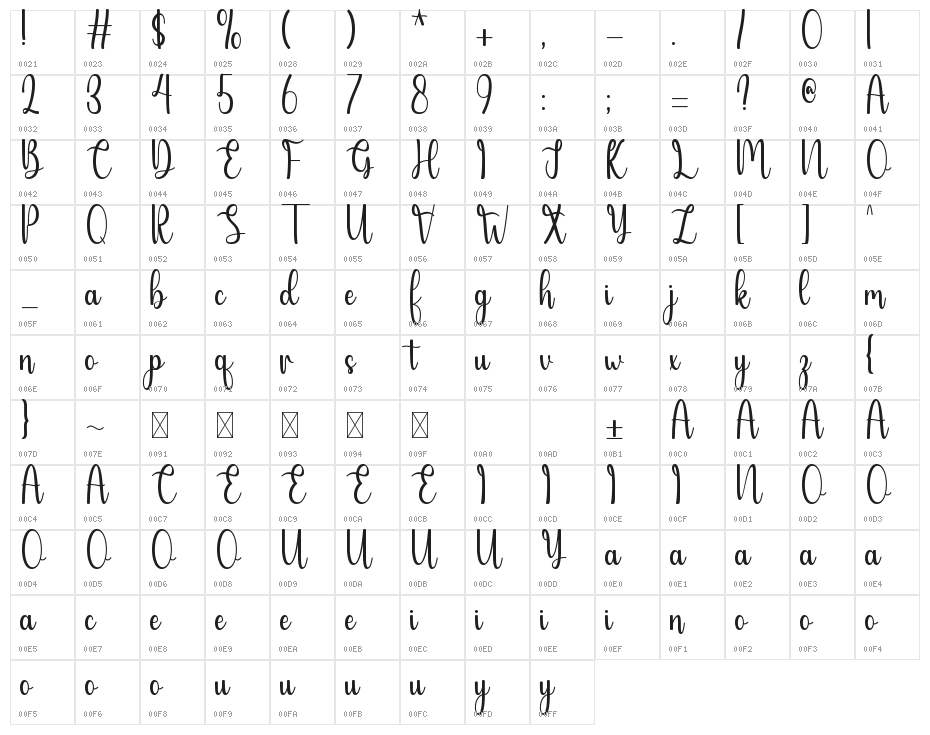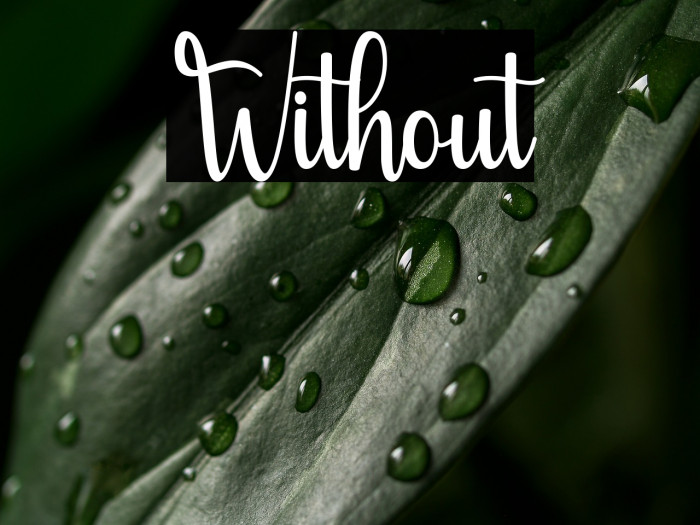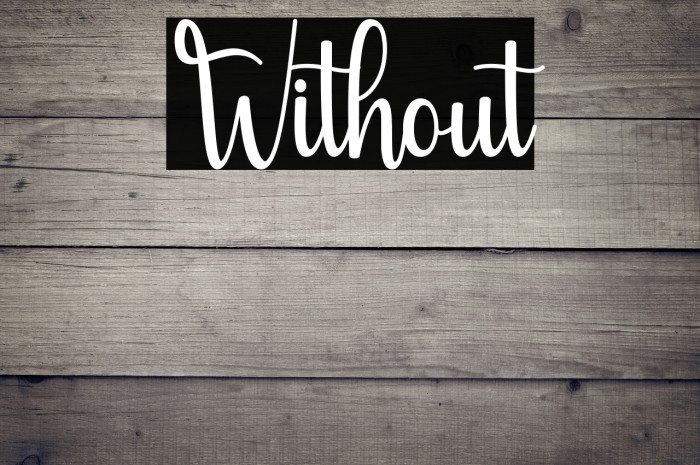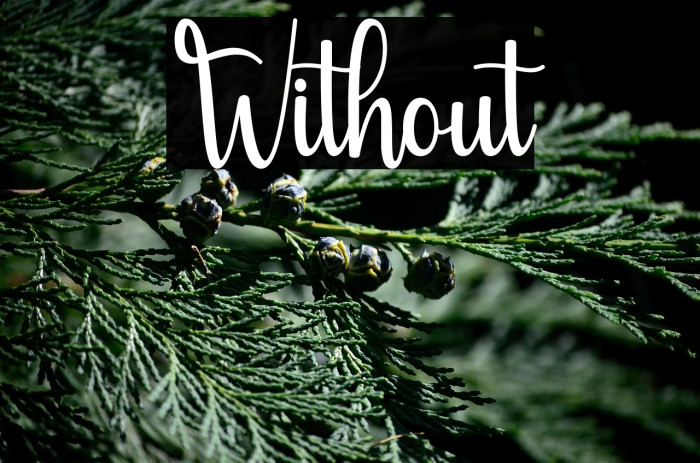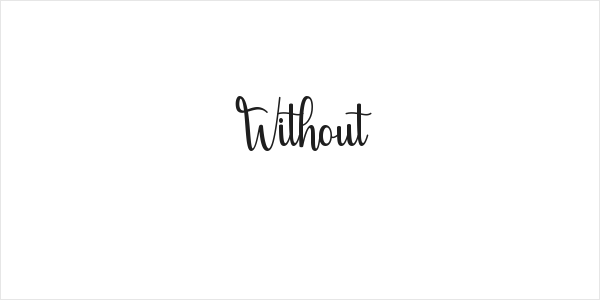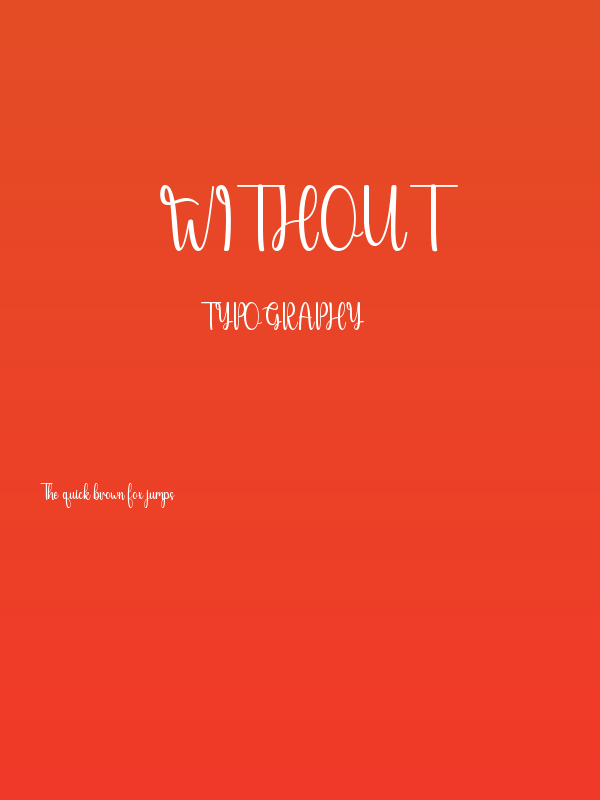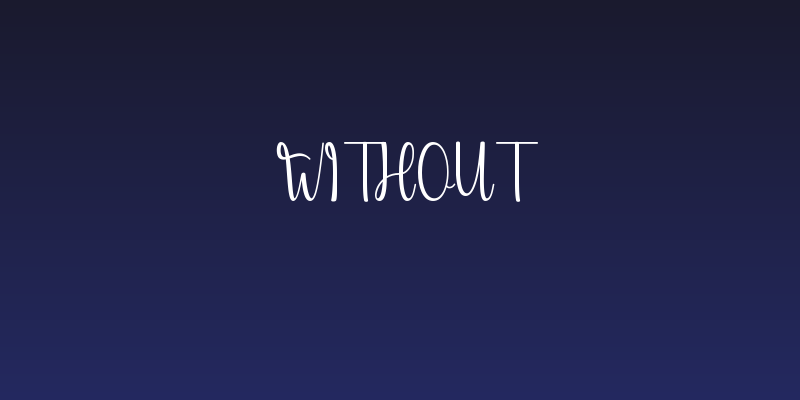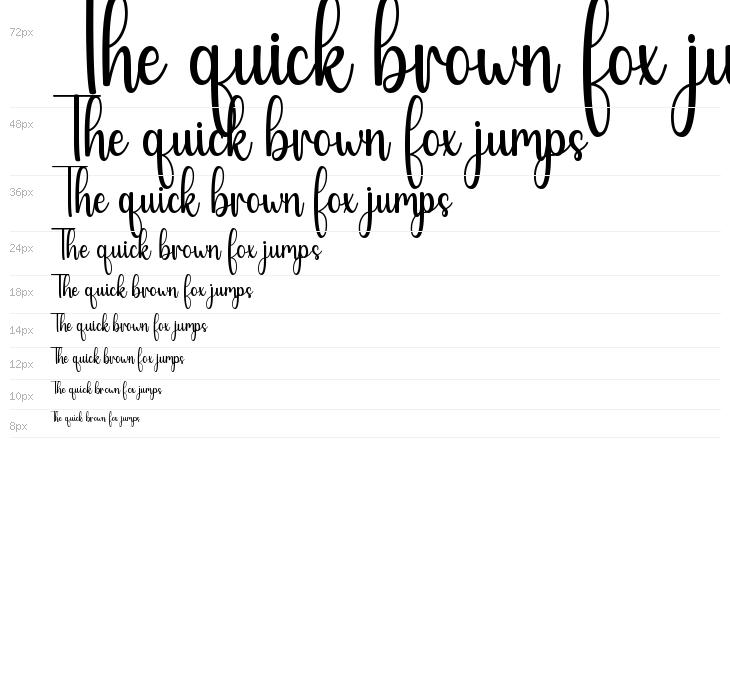
Without Font
Without Description
This font features a playful and whimsical handwritten style, characterized by its flowing, cursive-like letters. The uppercase and lowercase letters exhibit a consistent looped design, adding a sense of movement and fluidity. The numerals and special characters maintain this playful aesthetic, ensuring a cohesive look across all elements. The strokes are smooth and moderately thick, providing good readability while maintaining a casual and friendly appearance. This font is ideal for projects that require a personal touch, such as invitations, greeting cards, or playful branding materials.
| Proposed Projects | Ideal for invitations, greeting cards, playful branding, and personal projects. |